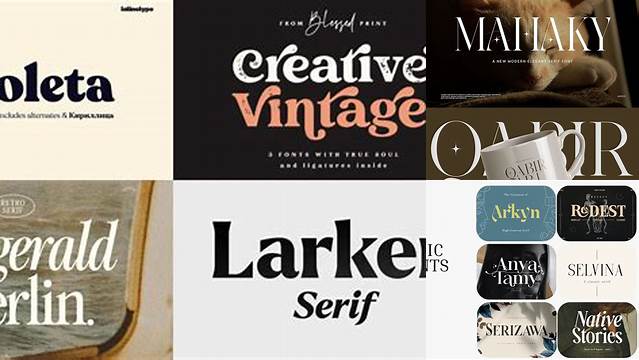
Free Modern Serif Fonts: Download Guide 2024
Hey guys, are you on the hunt for some awesome modern serif fonts? You're in luck! Serif fonts are a classic choice, offering a touch of elegance and sophistication to any design. Today, we'll dive into the world of modern serif fonts and show you where to find the best ones available for free download in 2024. Whether you're a seasoned designer or just starting out, knowing where to find quality fonts is essential. We'll cover everything from what makes a serif font modern to how to use them effectively in your projects. So, let's get started and unlock a treasure trove of beautiful typography!
Understanding Modern Serif Fonts
So, what exactly defines a modern serif font? Well, it's a bit of a broad term, but generally, it refers to serif fonts that have a contemporary feel. These fonts often incorporate clean lines, high contrast between thick and thin strokes, and a sense of refinement. Unlike traditional serifs that might feel a bit old-fashioned, modern serifs aim for a sleek and stylish appearance. They often draw inspiration from geometric shapes, creating a balance between classic elegance and modern simplicity. Key characteristics to look for include the presence of serifs – those little decorative strokes at the ends of letterforms – and a clear, legible design that's still visually interesting. The best modern serif fonts strike a perfect balance, being both readable and visually appealing. They can add a touch of class and sophistication to anything from website headings to print designs.
Modern serif fonts are incredibly versatile and can be used in various design projects. You can use them for anything from a professional website to a personal blog. The key is to choose the right font for the job. Think about the overall aesthetic you want to achieve and how the font will interact with the rest of your design. For example, a font with high contrast might be perfect for a headline but less suitable for body text. This is because the fine strokes can become difficult to read at smaller sizes. On the other hand, a font with a more consistent stroke width might be more suitable for longer passages of text. When choosing a font, consider its personality, its weight (bold, regular, light, etc.), and the type of serifs it has. Some serifs are sharp and angular, while others are rounded and soft. All of these factors will influence the overall impression of your design. Don't forget to experiment with different font pairings. Combining a modern serif font with a clean sans-serif font can create a visually appealing and balanced design. This combination is popular for a good reason, as it offers both contrast and harmony. When it comes to free downloads, it’s super important to check the licensing details. Make sure you're allowed to use the font for your intended purpose. Some fonts are only free for personal use, while others have more flexible licenses. Always respect the creator's rights and follow the license terms. There's nothing worse than getting hit with a copyright issue. Remember to consider the overall tone of your project. Is it formal or casual? Modern serif fonts can span a wide range of styles, from the very elegant to the more playful. Choose a font that fits your brand's personality. That way, your designs will be on point!
Top Websites for Free Modern Serif Font Downloads
- BeFonts: BeFonts is another great option, offering a curated selection of fonts. Make sure to review the licensing for each font, as terms can vary. The site provides a variety of modern serif fonts that are well-designed and perfect for all kinds of creative projects. Check the licenses. Some fonts are free for commercial use, and some are not. Being mindful of the licensing is super important to avoid any legal issues down the line. BeFonts is a good place to find both classic and new fonts. They usually provide previews, which is useful to visualize how each font will look in use. They have a varied collection, making it a good source for discovering unique typographic choices. Always confirm the usage rights to guarantee you're using the font legally.
How to Effectively Use Modern Serif Fonts in Your Designs
Now that you know where to find these awesome modern serif fonts, let's talk about how to use them effectively. Here are some tips to make sure your designs really shine. Using fonts correctly is just as important as choosing the right ones. Let's dive in and make sure you're set up for success!
- Headlines and Titles: Modern serif fonts are often perfect for headlines and titles. Their elegance and readability make them ideal for grabbing attention. Use a bolder weight for maximum impact, but make sure it complements the overall design. This way, your headlines will look super professional. Headlines should be eye-catching, so go bold! But be mindful of the contrast with your body text. Too much contrast can make things look unbalanced. So, play around with different weights and styles to find the best fit for your project. Experiment with different font sizes and spacing to make your titles pop. Ensure the headlines are easy to read and visually appealing.
- Body Text: While modern serif fonts can be used for body text, choose wisely. Some fonts are more suitable than others. Opt for fonts with a clear, legible design. Make sure the font is readable at smaller sizes. Test it out to make sure it works well for longer blocks of text. Always prioritize readability. The main point of body text is to convey information clearly, so legibility is super important. Choose a font with a good x-height (the height of the lowercase letters) to ensure readability. Consider the contrast of the font with the background color. Dark text on a light background is usually the best for readability. If you're unsure, test it out to ensure readability on different devices. A good choice can make your content more enjoyable to read.